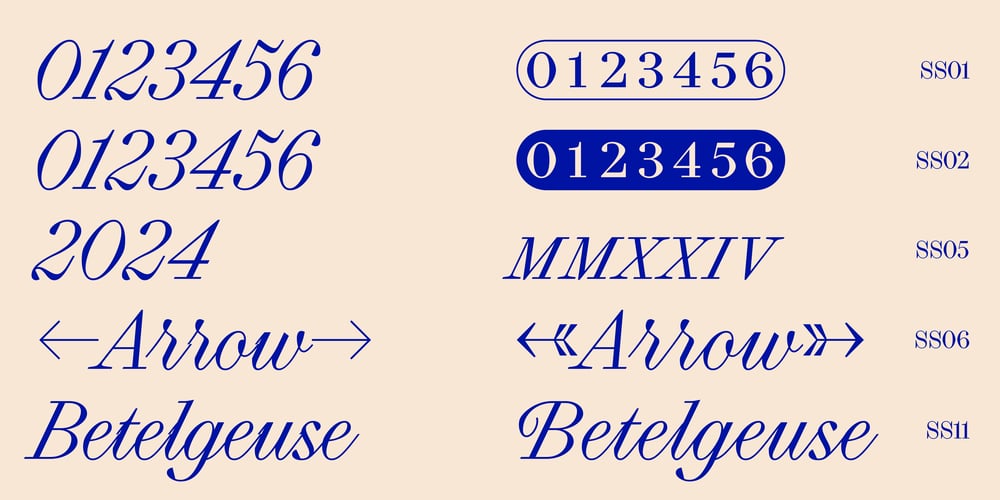
Selva Script Font Family was designed by Fanny Hamelin and published by Colophon Foundry. Selva Script contains 5 styles and family package options. Selva juxtaposes delicate detailing with angular moments within a singular Scotch typeface that comprises Roman (with corresponding Italic) and Script cuts.Selva Script brings classical calligraphic detailing through connections, letter structures and rhythm, whereas the Italic variant is a dynamic version of traditional Scotch typefaces.These two variants of the typeface make great companions to the Roman family, whose structure is slightly condensed to follow its slanted styles. The calligraphic influence, notably apparent in the pinched curves and the tall capitals, ascenders and descenders, is counterbalanced by a modern aesthetic with its sharp breaks, its drops cut at right angles and its systematic look. This type family is inspired by details of various typefaces and styles and renders it into a cohesive type family that aims to encapsulate the spirit of Scotch typefaces.Selva is available in five weights — Light, Regular, Medium, Bold and Black — over two families — Roman and Script. The Roman variant includes corresponding Italics. Selva is open to licensing in both Standard (‘STD’) and Professional (‘PRO’) versions. The latter contains a multitude of OpenType features, old style numerals, various stylistic alternates and swashes.